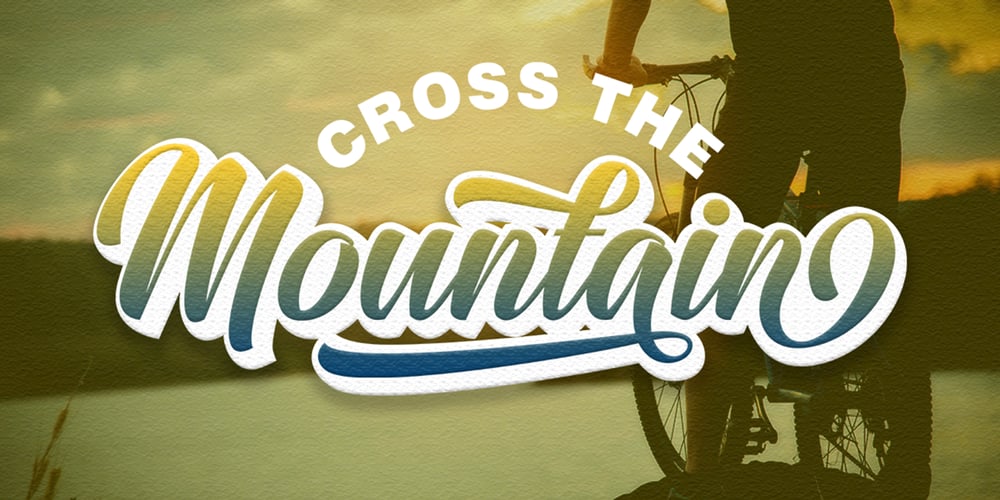
Garlandia Script
Garlandia Script font
Garlandia Script Font Family was designed by Samsul Kamal and published by Lettersams. Garlandia Script contains 3 styles and family package options. Garlandia was inspired by Retro style in combination with a Handwriting style. Garlandia Script has many alternative swash and features like stylistic alternates, stylistic set, ligature and swashes so you can mix and match as you wish. Garlandia comes with open type features such as alternative styles, style sets and great features for logos, posters, badges, book covers, t-shirt designs, handwritten quotes, product packaging, headers, posters, merchandise, social media & greeting cards. To activate the OpenType Stylistic alternative, you need a program that supports OpenType features such as Adobe Illustrator CS, Adobe Indesign & CorelDraw X6-X7, Microsoft Word 2010 or newer versions. Garlandia is coded with PUA Unicode, which allows full access to all additional characters without having special design software. Mac users can use Font Book, and Windows to attach to your favorite text editor / application. If you need help or have questions, let me know or via email “lettersams@gmail.com” I am happy to help 🙂 Thank you!